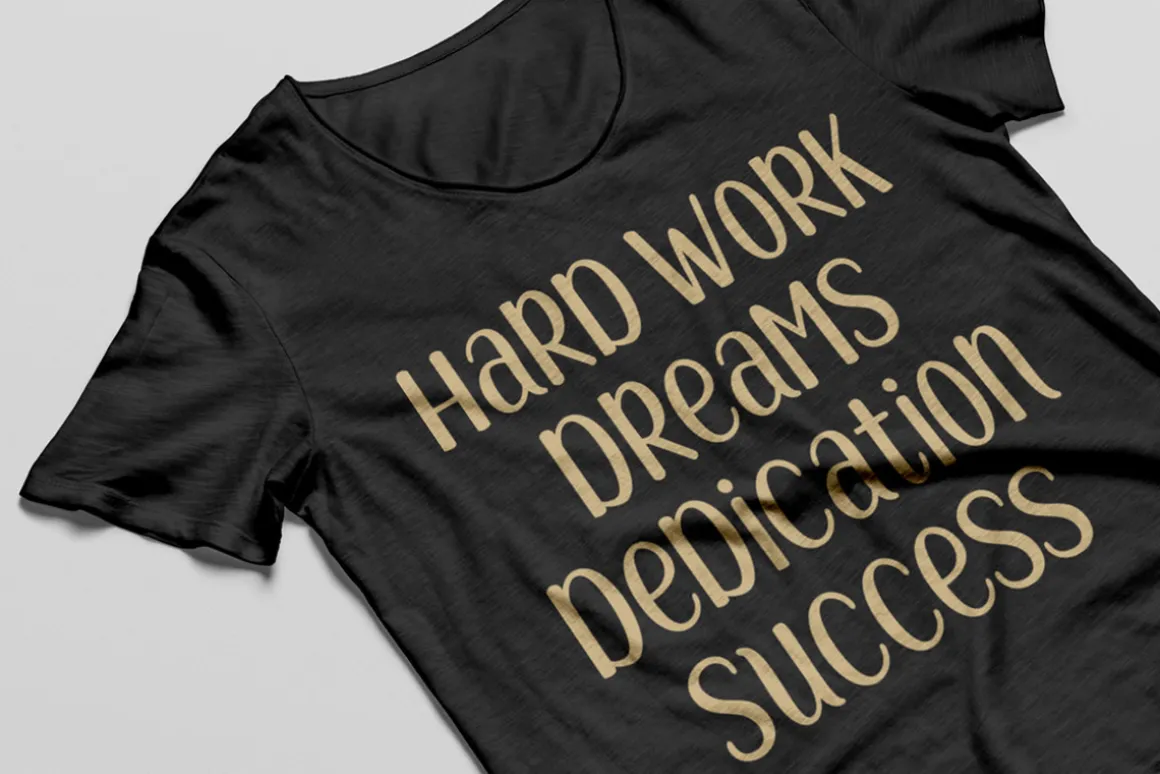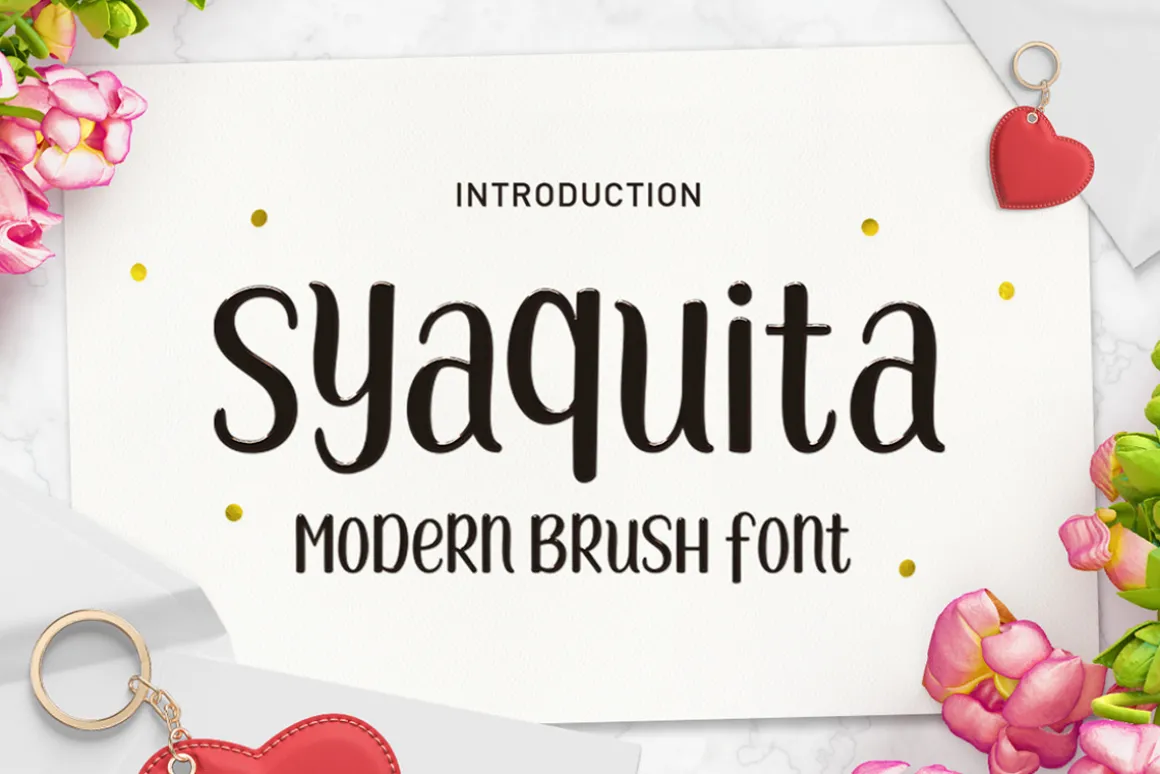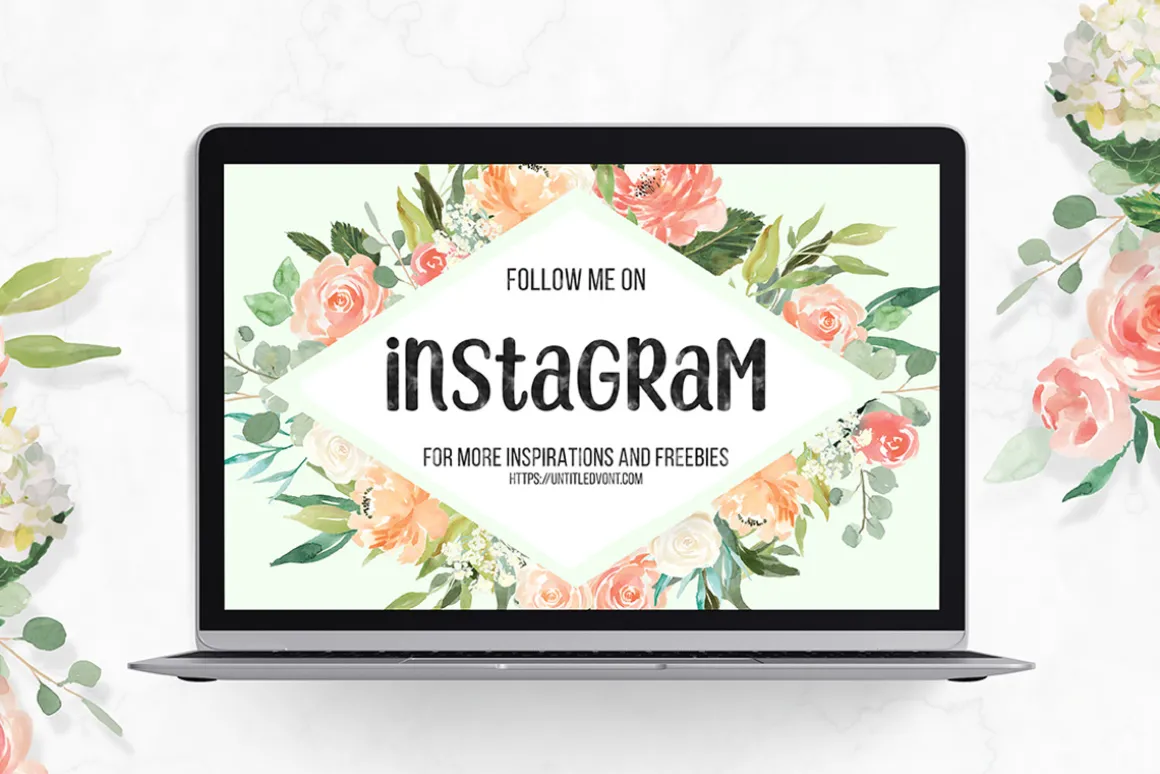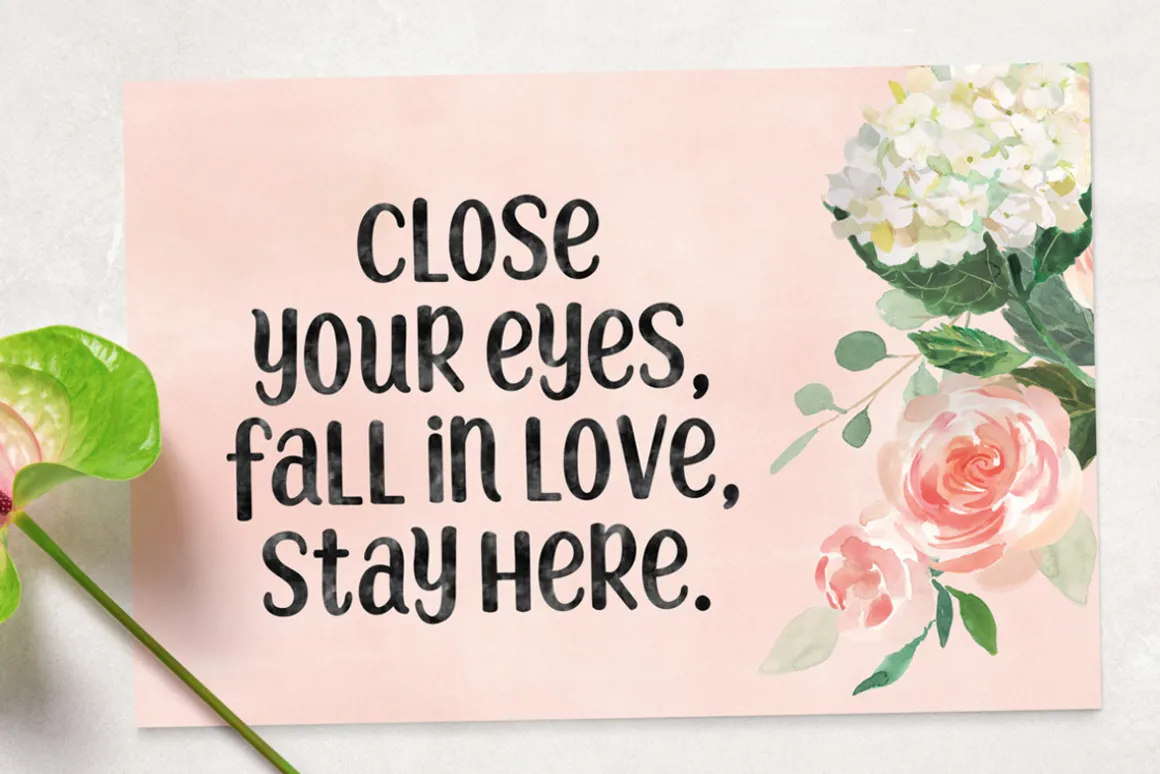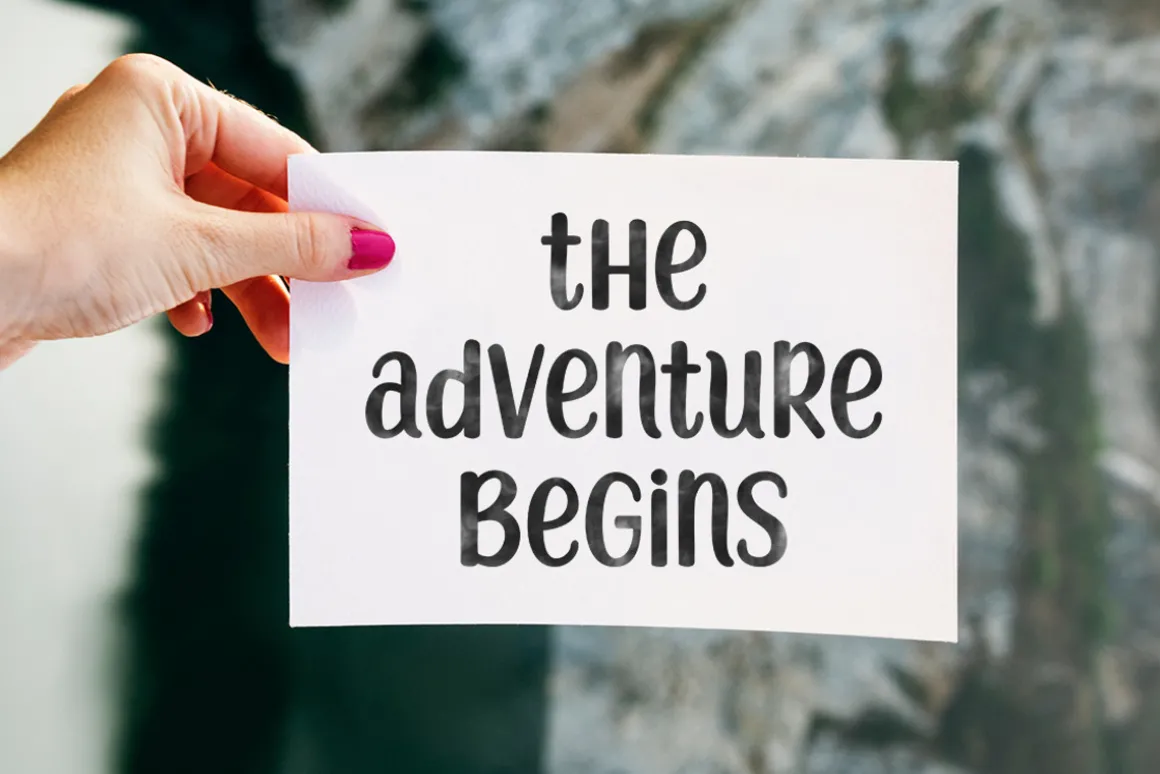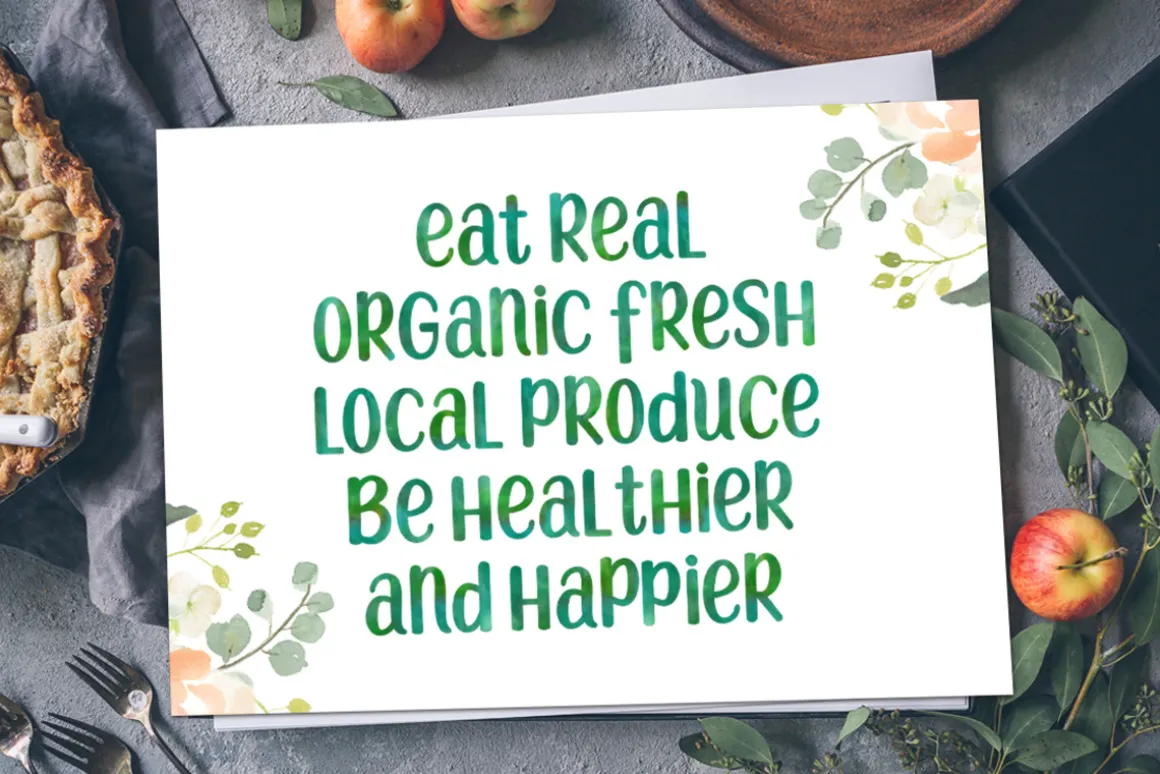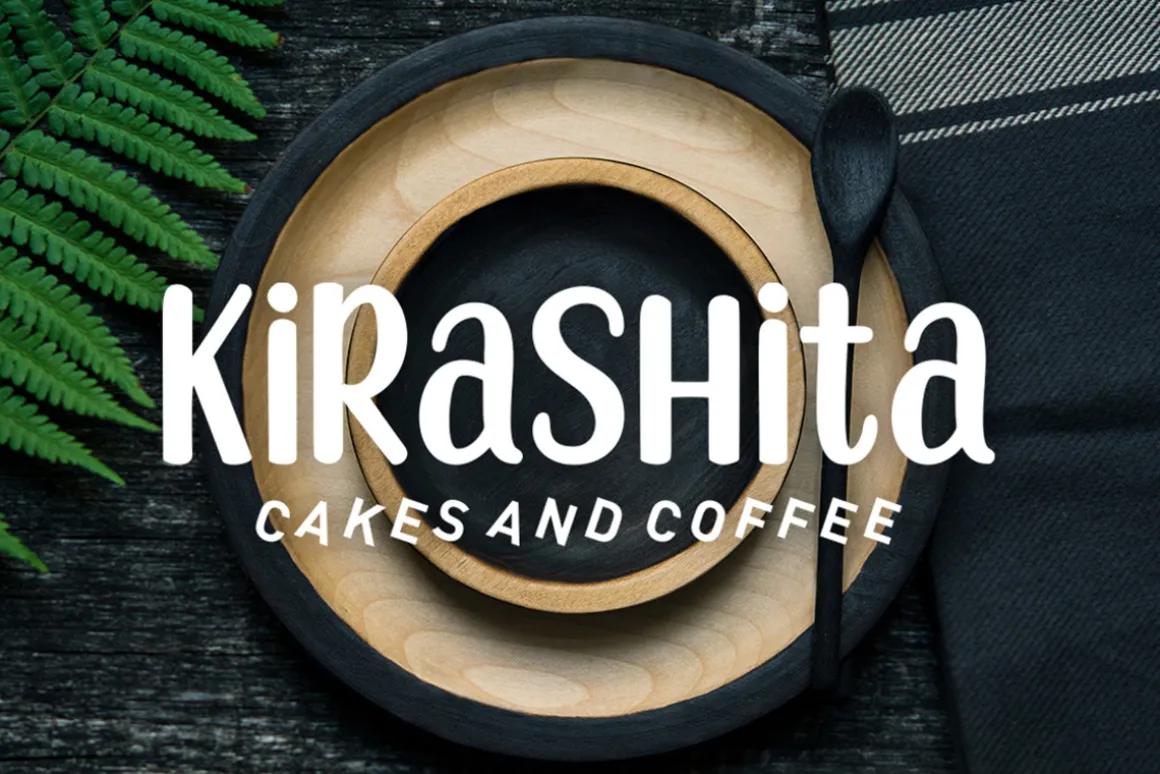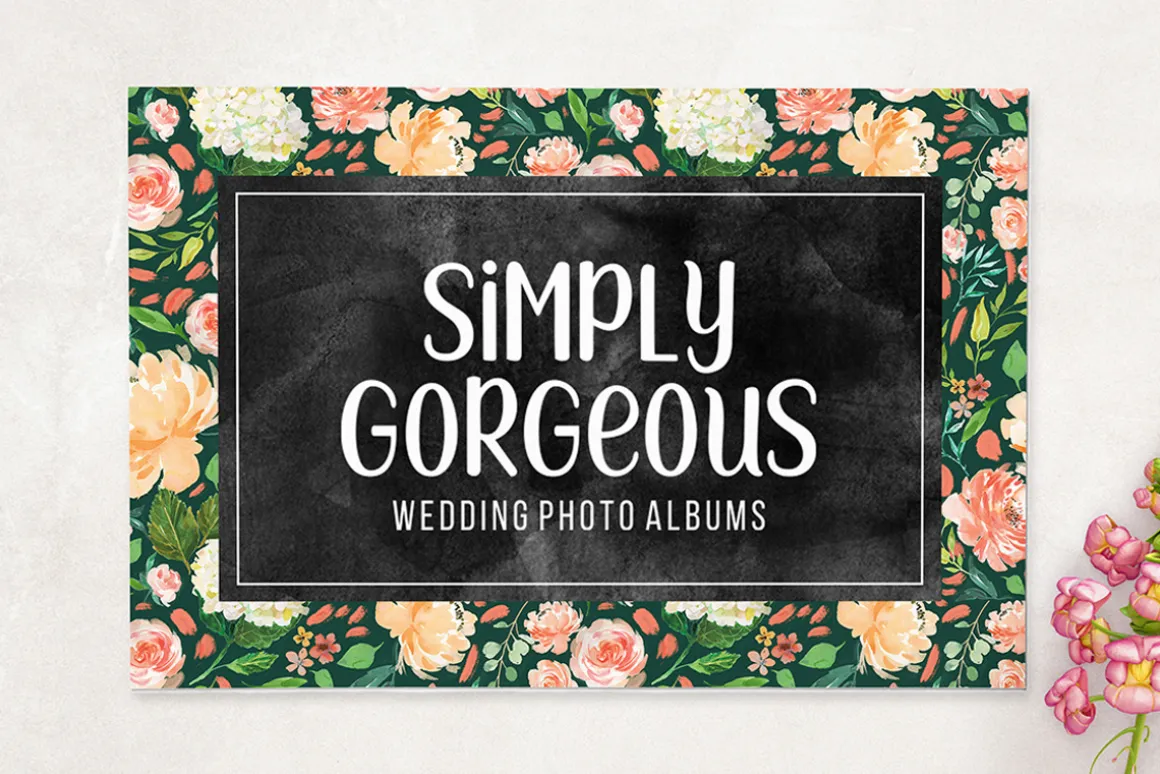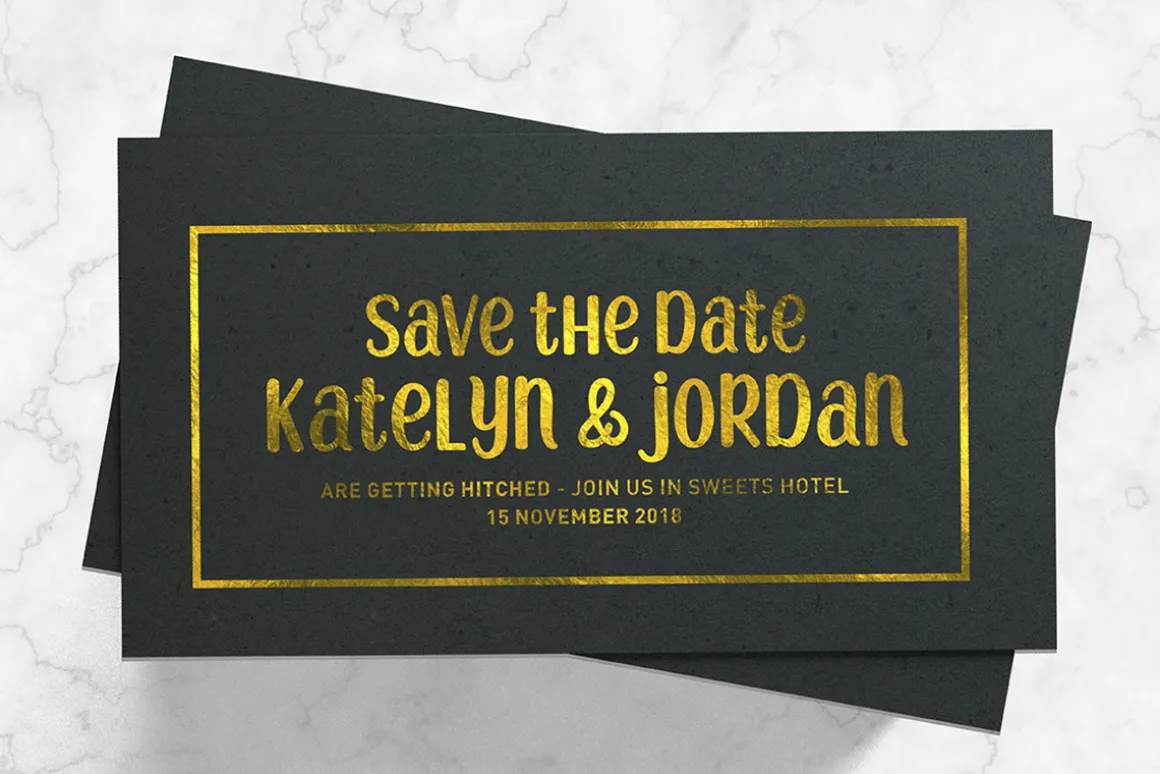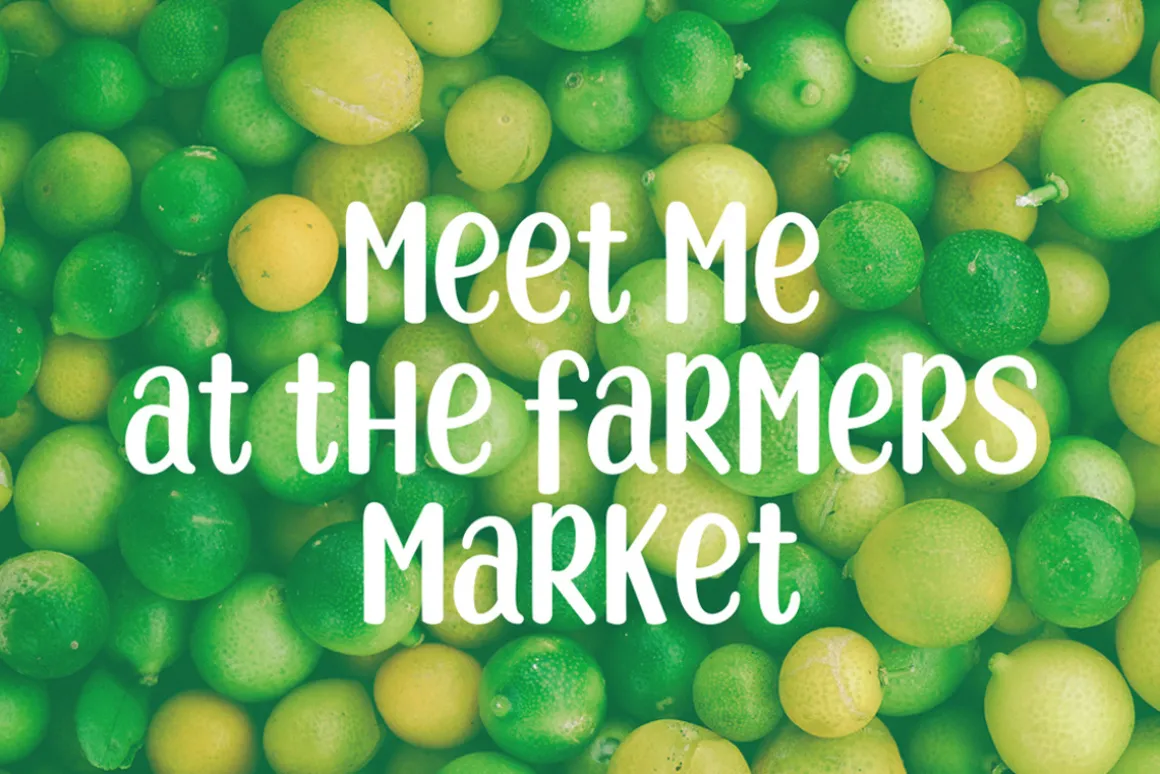
Syaquita Font
Syaquita is modern brush font, stylish and organic. can be used for stationery, fashion, logo, merchandise, books, clothing, magazines, cover artwork etc. Syaquita includes several ligatures, alternates and international support for most western languages.